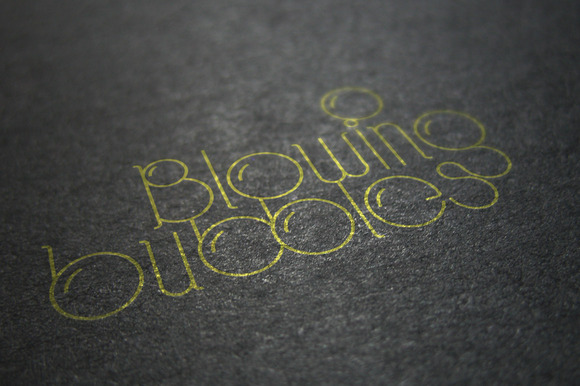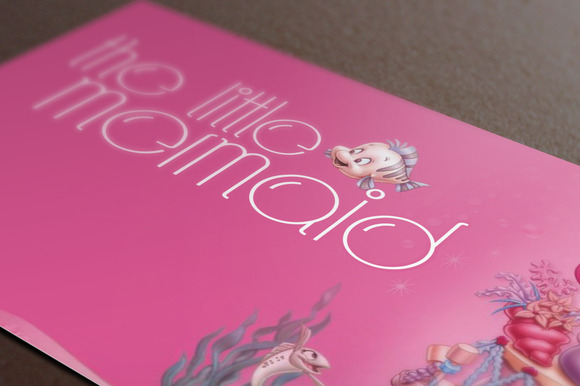
Bubble Typeface
This is a lively and lovely bubble typeface, can be used in the design of children’s classes, including 200+ glyphs, hope you can love it..